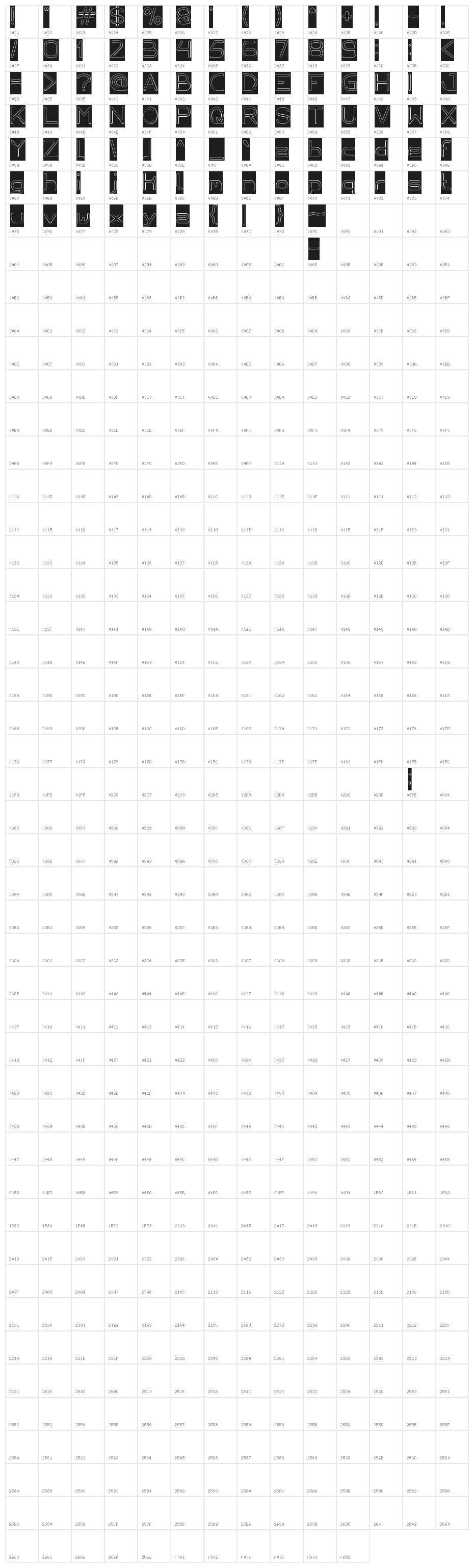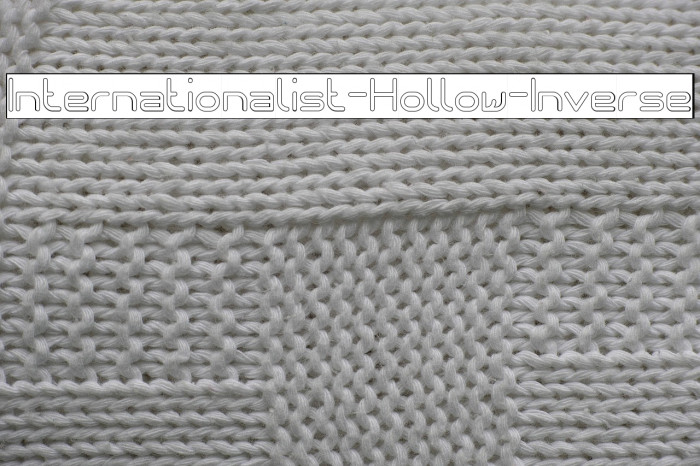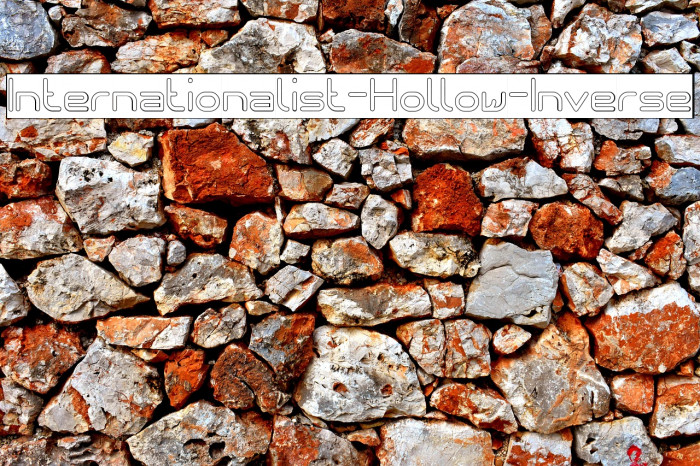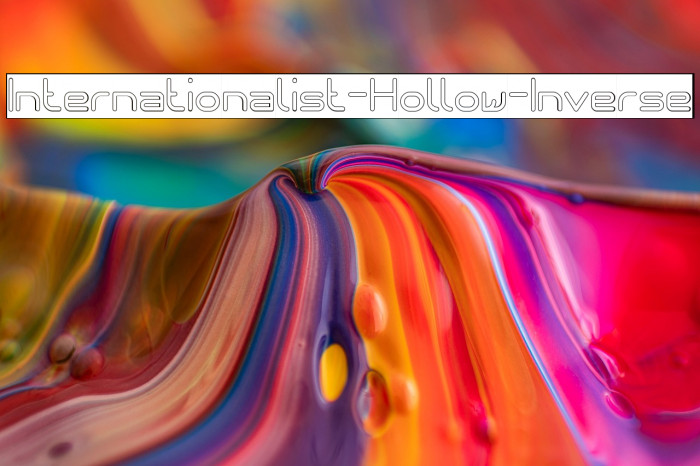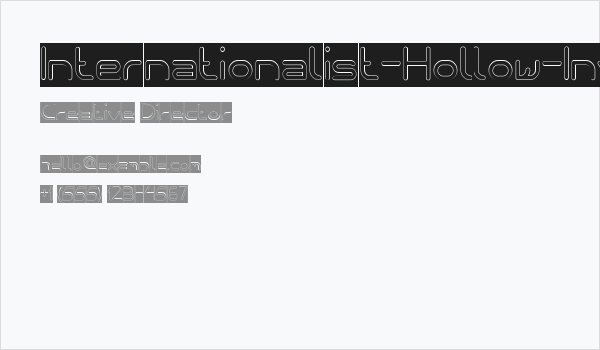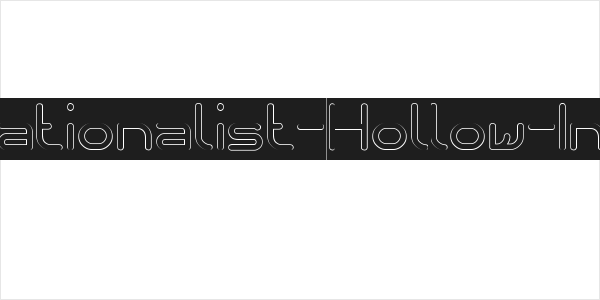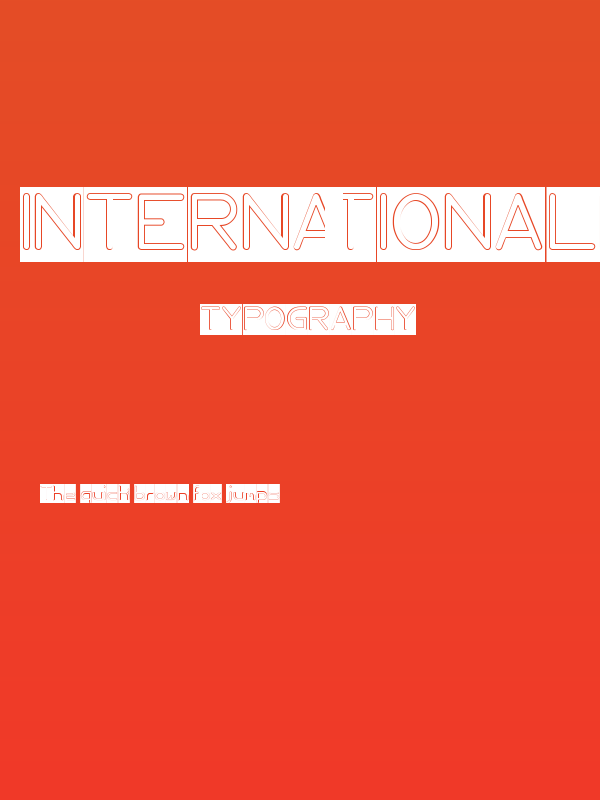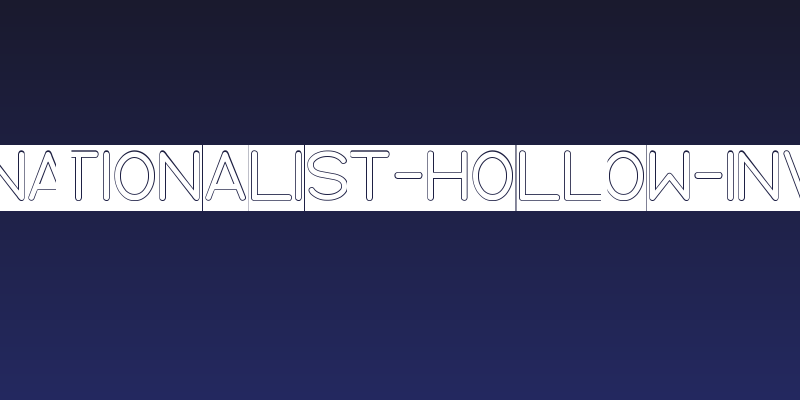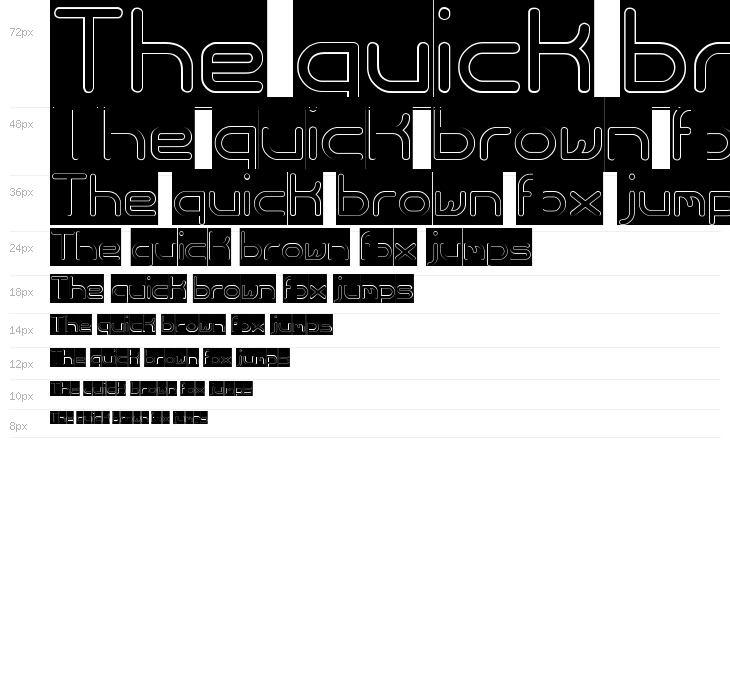
Internationalist-Hollow-Inverse Font
Internationalist-Hollow-Inverse Description
This font features a unique hollow design with an inverse style, creating a striking visual effect. The characters are outlined with a consistent stroke width, giving them a modern and futuristic appearance. The uppercase and lowercase letters maintain a geometric structure, with clean lines and sharp angles. Numbers and special characters follow the same design principles, ensuring uniformity across the entire typeface. The hollow aspect allows for creative layering and color play, making it ideal for eye-catching designs.
| Proposed Projects | Ideal for digital artwork, posters, branding, and any project requiring a modern and futuristic aesthetic. |